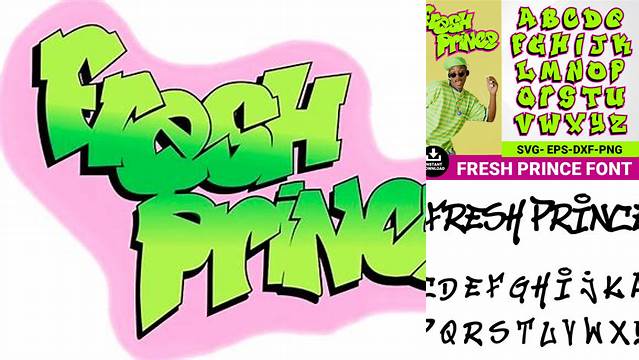
Hey guys! Are you a fan of the Fresh Prince of Bel-Air? Of course, you are! That show was iconic. And if you're looking to capture some of that 90s nostalgia, using the right font is key. In this article, we're diving deep into everything you need to know about the Fresh Prince font, where to find it, and how to use it in your projects. Let's get started!
1. What is The Fresh Prince Font?
So, what exactly is the Fresh Prince font? Well, it's not just one font, but rather a combination of typography styles that evoke the show's vibrant and energetic vibe. The opening credits, with their graffiti-inspired lettering and bold colors, are particularly memorable. Understanding this aesthetic is the first step to finding the perfect font for your Fresh Prince-inspired projects. We need to consider the overall feel of the show – playful, urban, and full of character. The font isn't just a typeface; it's a statement, a reflection of the show's unique identity. Think about the bright colors, the bold strokes, and the slightly edgy look. These are the elements that make up the iconic style, and they're the elements we need to capture in our font choices. When you're searching for a font, consider the texture and weight. Does it have a hand-drawn feel, like it was sprayed onto a wall? Or is it more polished, but still with a sense of movement? The Fresh Prince had a certain rebellious, yet accessible energy, and the font needs to reflect that. It's not about just finding any old graffiti font; it's about finding one that embodies the spirit of the show. Remember, the Fresh Prince font is more than just letters; it's a piece of the cultural phenomenon. It represents a time, a place, and a whole lot of attitude. So, as we delve into the specifics, keep this essence in mind, and you'll be well on your way to finding the perfect match.
2. Identifying The Exact Font Used in the Show
Identifying the exact font used in the show can be a bit tricky because it's likely a custom design or a combination of different fonts. However, we can get pretty close by analyzing the key characteristics of the show's typography. Think about the opening credits and the title cards – what stands out? The thick, bold lines, the slight slant, and the overall urban feel are crucial elements. Many people assume it's a specific, readily available font, but in reality, it’s often a customized typeface or a design inspired by various fonts. This means we need to look for fonts that share those characteristics rather than a single, definitive answer. One approach is to break down the font into its core components. Is it a sans-serif or a serif font? Does it have a handwritten quality, or is it more geometric? The Fresh Prince font leans heavily towards a bold, sans-serif style with a touch of urban flair. Consider the spacing between letters, the thickness of the strokes, and the overall weight of the font. These details can help narrow down your search. Another helpful tip is to look at similar designs from the same era. The 90s had a distinct aesthetic, and many fonts from that time share characteristics with the Fresh Prince style. Exploring fonts used in other TV shows, commercials, or graphic designs from the same period can provide valuable clues. You can also use online tools that help identify fonts from images. Simply upload a screenshot of the Fresh Prince logo or opening credits, and the tool will suggest similar fonts. This can be a quick way to find options that are close to the exact font used in the show. Remember, the goal isn't necessarily to find a perfect match, but to find a font that captures the same spirit and energy. So, keep an open mind and be willing to experiment with different options until you find the perfect fit.
3. Free Fonts Similar to The Fresh Prince Font
Okay, so finding the exact font might be tough, but don't worry! There are tons of free fonts similar to the Fresh Prince font that you can use. This is where the fun begins! We can explore a range of options that capture the same vibe without breaking the bank. Remember, the goal is to find a font that embodies the show's energy and style, and there are plenty of free alternatives that do just that. When searching for free fonts, consider websites like DaFont, FontStruct, and Google Fonts. These platforms offer a vast collection of typefaces, many of which are available for personal and even commercial use. Just be sure to check the licensing terms before you start using a font in your projects. One great approach is to search for fonts with keywords like “graffiti,” “urban,” “bold,” and “sans-serif.” These terms will help you narrow down the options and find fonts that are stylistically similar to the Fresh Prince font. Another tip is to look for fonts that have a slightly distressed or hand-drawn feel. This can add an extra layer of authenticity and capture the show's raw energy. Imagine the font being sprayed onto a brick wall – that's the kind of texture we're going for. Don't be afraid to experiment with different fonts and combinations. Sometimes, layering different typefaces can create a unique and dynamic effect. You might use one font for headings and another for body text, for example. The key is to create a cohesive look that feels both modern and nostalgic. Remember, the beauty of using free fonts is that you have the freedom to try out different options without any financial commitment. So, download a few fonts, play around with them, and see what works best for your project. With a little bit of creativity, you can easily find a free font that perfectly captures the Fresh Prince font aesthetic.
6. How to Identify a Font Similar to The Fresh Prince
Alright, so you've got the vision – you want that Fresh Prince font feel – but how do you actually identify a font similar to The Fresh Prince? Let's break down the process. It's like being a font detective, and we're here to give you the tools you need to crack the case. The first step is to analyze the key characteristics of the Fresh Prince font. We've talked about this before, but it's worth reiterating: think bold, urban, and maybe even a little bit graffiti-inspired. The font has a certain energy and attitude that sets it apart. Start by looking at the font's overall shape and structure. Is it a sans-serif font (meaning it doesn't have those little decorative strokes at the ends of the letters)? Most likely, yes. Is it bold and thick? Definitely. Does it have a slightly slanted or italicized appearance? That's another common trait. These are the basic building blocks of the Fresh Prince font style. Next, consider the font's texture and feel. Does it look clean and modern, or does it have a more distressed or hand-drawn quality? The Fresh Prince font often has a slightly rough edge, as if it was sprayed onto a wall. This texture adds to its urban vibe. Think about the spacing between the letters. Is the font tightly spaced, or are the letters more spread out? The spacing can affect the overall readability and impact of the font. A tightly spaced font can look bold and impactful, while a more loosely spaced font can feel more relaxed and casual. Another helpful tip is to use online font identification tools. There are several websites that allow you to upload an image of a font and they will try to identify it or suggest similar fonts. This can be a quick way to narrow down your search. Simply take a screenshot of the Fresh Prince logo or title sequence and upload it to one of these tools. Finally, don't be afraid to experiment and try out different fonts. The best way to identify a font that captures the Fresh Prince feel is to see how it looks in context. Download a few different options and use them in your designs. See which one feels the most authentic and captures the spirit of the show. With a little bit of analysis and experimentation, you'll be able to identify a font similar to The Fresh Prince in no time.
7. Using Font Identification Tools for Fresh Prince Fonts
Okay, let's talk tech! Using font identification tools for Fresh Prince fonts can be a game-changer. These tools are like having a font expert at your fingertips, ready to analyze any typeface and suggest matches or similar styles. They can save you tons of time and effort in your font quest. So, how do these tools work? Most font identification tools operate by analyzing an image of the font. You upload the image, and the tool scans it, comparing the letterforms to its database of fonts. It then provides you with a list of potential matches, along with links to download or purchase the fonts. One of the most popular font identification tools is WhatTheFont by MyFonts. This tool is incredibly user-friendly – you simply upload an image, and it automatically identifies the letters and searches for matches. It also allows you to manually adjust the letter selections if needed, ensuring accurate results. Another great option is Font Matcherator by Fontspring. This tool is known for its accuracy and its ability to identify even obscure or less common fonts. It also provides a confidence rating for each match, so you can see how likely the tool is to be correct. Identifont is another useful resource. Unlike the other tools, Identifont uses a questionnaire approach. It asks you a series of questions about the font's characteristics, such as its style, weight, and serifs. Based on your answers, it generates a list of potential matches. This can be a helpful approach if you have a good understanding of font terminology. When using these tools for Fresh Prince fonts, it's important to upload a clear, high-resolution image. The better the image quality, the more accurate the results will be. Also, make sure the image includes a variety of letters, as this will give the tool more information to work with. Keep in mind that font identification tools aren't always perfect. They may not be able to identify every font, especially if it's a custom design or a modified version of an existing font. However, they can still be a valuable resource for finding fonts that are similar to the Fresh Prince font. So, if you're struggling to find the perfect typeface, give these tools a try. They might just be the secret weapon you need.
8. Paid Font Alternatives Inspired by The Fresh Prince
Alright, let's talk about stepping up the font game. While there are tons of free options out there, sometimes you want something extra special. Let's explore paid font alternatives inspired by The Fresh Prince. Now, paying for a font might seem like a big commitment, but it can be a worthwhile investment, especially if you're using the font for commercial projects or if you just want a really unique and high-quality typeface. Paid fonts often come with more features and glyphs, and they're typically designed with greater attention to detail. They also tend to have more comprehensive licensing terms, giving you more flexibility in how you use them. When looking for paid font alternatives, it's helpful to understand what sets them apart from free fonts. Paid fonts often have a wider range of weights and styles, allowing you to create a more nuanced and sophisticated design. They may also include additional characters, such as ligatures, alternates, and swashes, which can add a touch of elegance and personality to your typography. Another benefit of paid fonts is that they often come with better support and documentation. If you have any questions or issues with the font, you can usually contact the designer or foundry for assistance. This can be invaluable if you're working on a complex project or if you're not a font expert. When searching for paid Fresh Prince-inspired fonts, consider websites like MyFonts, Creative Market, and Adobe Fonts. These platforms offer a vast selection of high-quality typefaces from independent designers and foundries. You can browse by style, theme, and price, making it easy to find the perfect font for your needs. Remember, investing in a good font is like investing in any other design asset. It can elevate your work and help you create a professional and polished look. So, if you're serious about typography, consider exploring the world of paid fonts – you might just find your new favorite typeface. A paid font might be exactly what you need to nail the paid font alternatives inspired by The Fresh Prince aesthetic.
9. The Importance of Font Licensing
Okay, let's get serious for a minute and talk about something super important: the importance of font licensing. This might sound like a dry topic, but trust me, understanding font licenses is crucial if you want to avoid legal trouble and use fonts responsibly. Think of it this way: fonts are like software – they're intellectual property created by designers, and they're protected by copyright law. When you download a font, you're not actually buying the font itself; you're buying a license to use it. This license specifies how you can use the font, and what restrictions apply. There are many different types of font licenses, and they can vary widely in their terms. Some licenses are very permissive, allowing you to use the font for both personal and commercial projects without any restrictions. Others are more restrictive, limiting how you can use the font or requiring you to pay additional fees for certain types of usage. One of the most common distinctions is between personal use and commercial use licenses. A personal use license typically allows you to use the font for non-commercial projects, such as creating invitations for a birthday party or designing a personal website. A commercial use license, on the other hand, allows you to use the font for projects that generate revenue, such as creating logos for clients or designing marketing materials for a business. It's essential to understand the terms of the license before you start using a font. If you use a font in a way that violates the license, you could be sued for copyright infringement. This can result in hefty fines and legal fees. When you download a font, the license agreement is usually included in the download package. It's typically a text file with a name like “License.txt” or “ReadMe.txt.” Take the time to read the license agreement carefully and make sure you understand the terms. If you're not sure about something, it's always best to err on the side of caution and contact the font designer or foundry for clarification. Remember, respecting font licenses is not just about avoiding legal trouble; it's also about supporting the designers who create the fonts we love. By using fonts responsibly, you're helping to ensure that designers can continue to create beautiful and innovative typefaces. So, let's all do our part to uphold the importance of font licensing.
10. Using Fresh Prince Fonts in Graphic Design Projects
Alright, let's get practical! You've found the perfect font (or a few!), now what? Let's talk about using Fresh Prince fonts in graphic design projects. This is where the fun really begins – bringing that 90s energy to your designs. The Fresh Prince font style is bold, energetic, and full of character, so it's perfect for projects that need a touch of retro flair. Think posters, flyers, social media graphics, logos, and even website headers. The key is to use the font in a way that complements the overall design and captures the right vibe. One of the first things to consider is the context of your project. What message are you trying to convey? What audience are you trying to reach? The Fresh Prince font style is best suited for projects that have a playful, urban, or nostalgic feel. It might not be the best choice for a formal business document, but it could be perfect for a party invitation or a concert poster. Think about the colors you're using in your design. The Fresh Prince aesthetic is all about bold, vibrant colors. Think neon greens, hot pinks, and electric blues. These colors can really make your typography pop and capture that 90s energy. Consider pairing your Fresh Prince font with other design elements that evoke the same era. Think graffiti-style graphics, geometric patterns, and retro illustrations. These elements can help create a cohesive and authentic look. Don't be afraid to experiment with different font sizes and weights. A bold, oversized headline in a Fresh Prince font can make a big impact, while a smaller, lighter weight font can be used for body text or captions. The key is to create a visual hierarchy that guides the viewer's eye. Think about the overall layout of your design. The Fresh Prince aesthetic often involves a sense of organized chaos – elements are arranged in a dynamic and asymmetrical way, but there's still a sense of balance and harmony. Don't be afraid to break the rules and try something unexpected. Most importantly, have fun! Designing with Fresh Prince fonts is all about embracing the energy and creativity of the 90s. So, let your imagination run wild and see what you can create. Using Fresh Prince fonts in graphic design projects can really make them stand out!